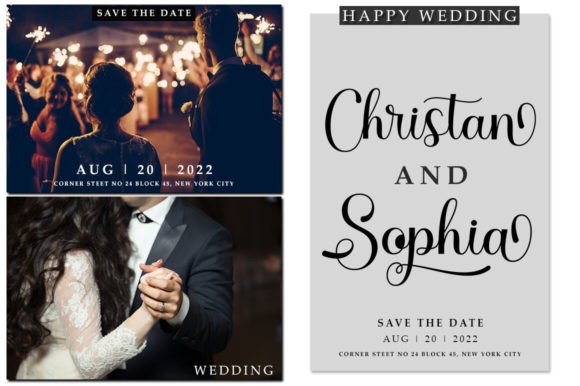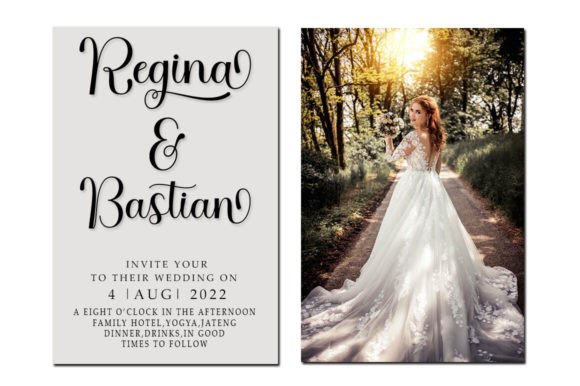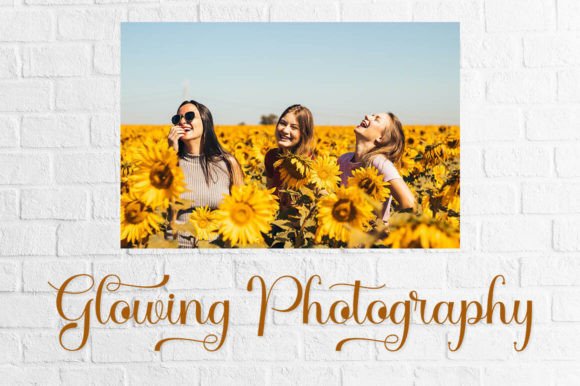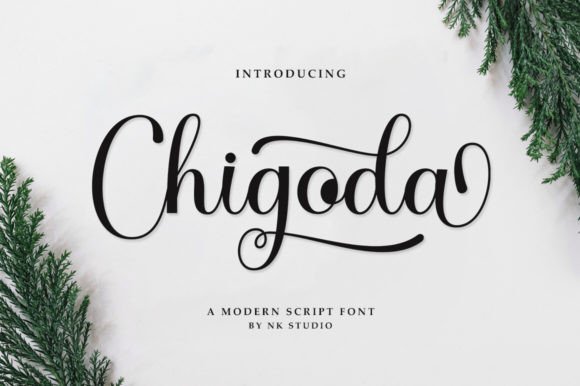
Introduction to Chigoda Font
Chigoda Script in a beautiful handwritten style.
Equipped with 351 glyphs Chigoda Script is perfect for branding projects, homeware design, product packaging, use in business cards, invitation cards, etc.
Chigoda Font offers exceptional quality and versatility, making it a valuable addition to your design toolkit. Whether you’re creating for personal projects or commercial use, Chigoda Font delivers professional results.